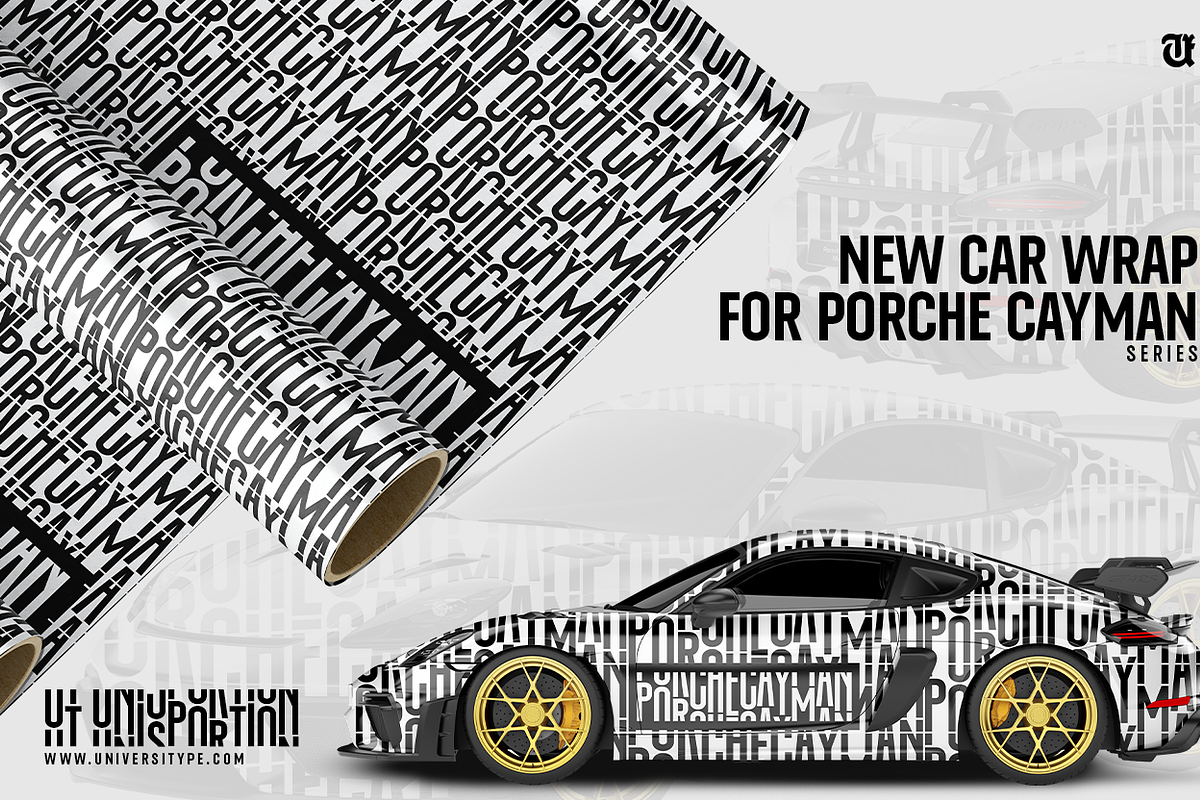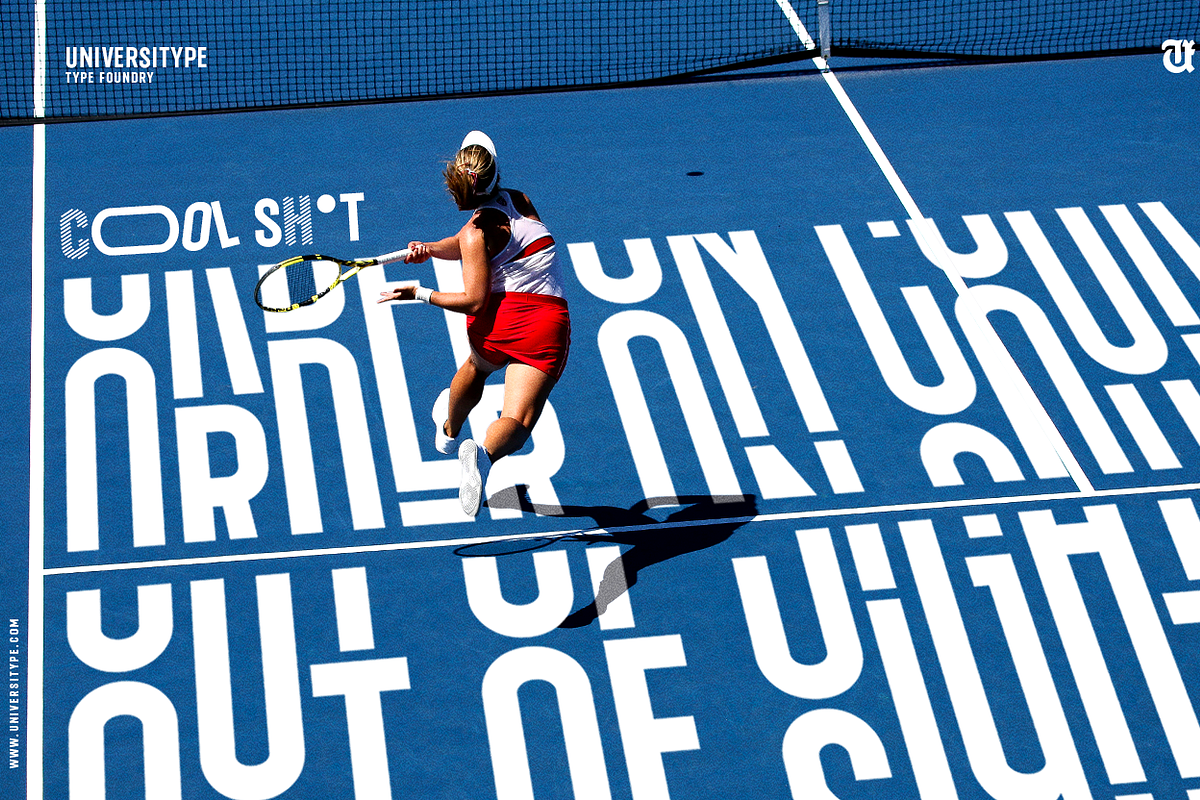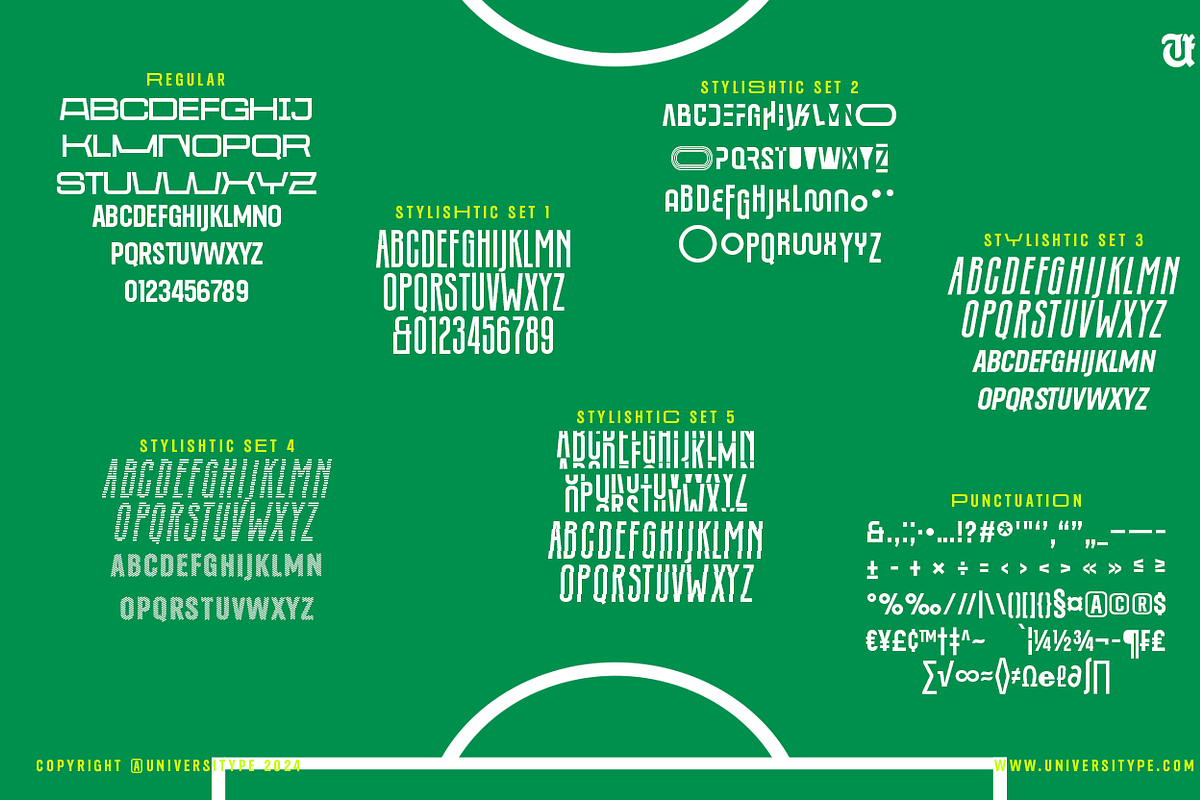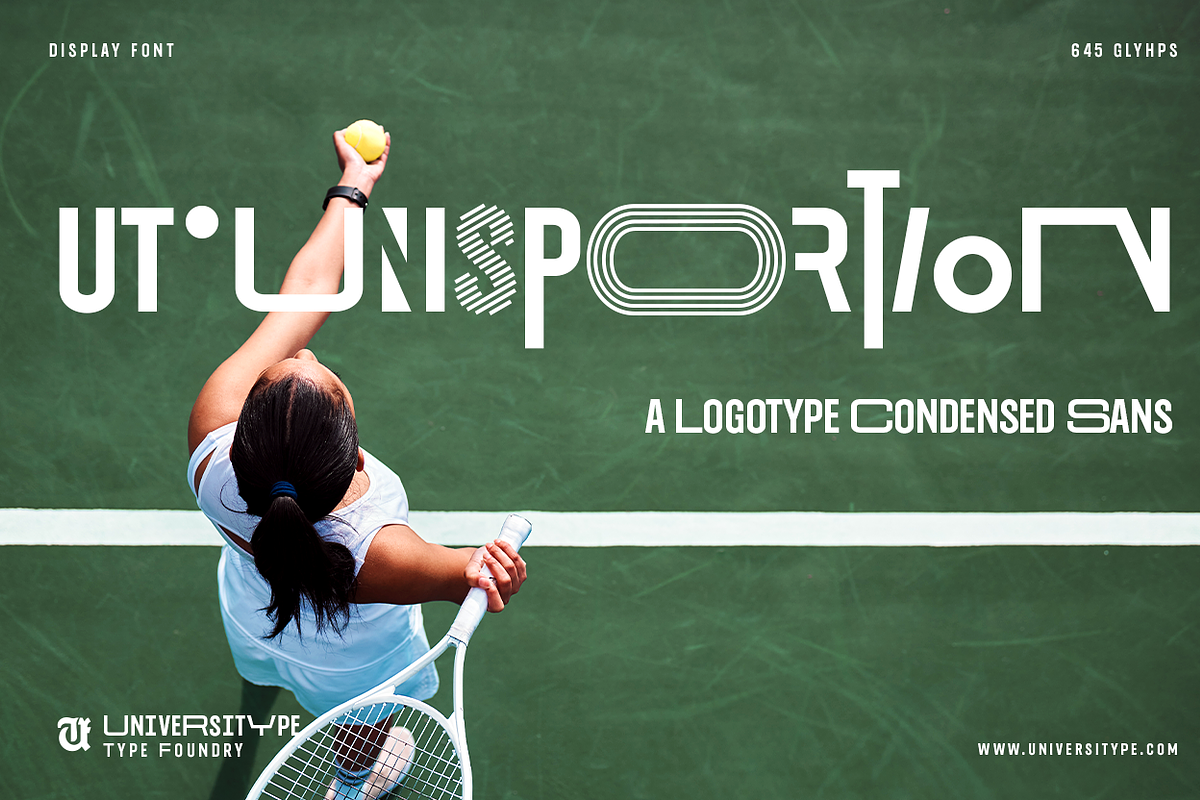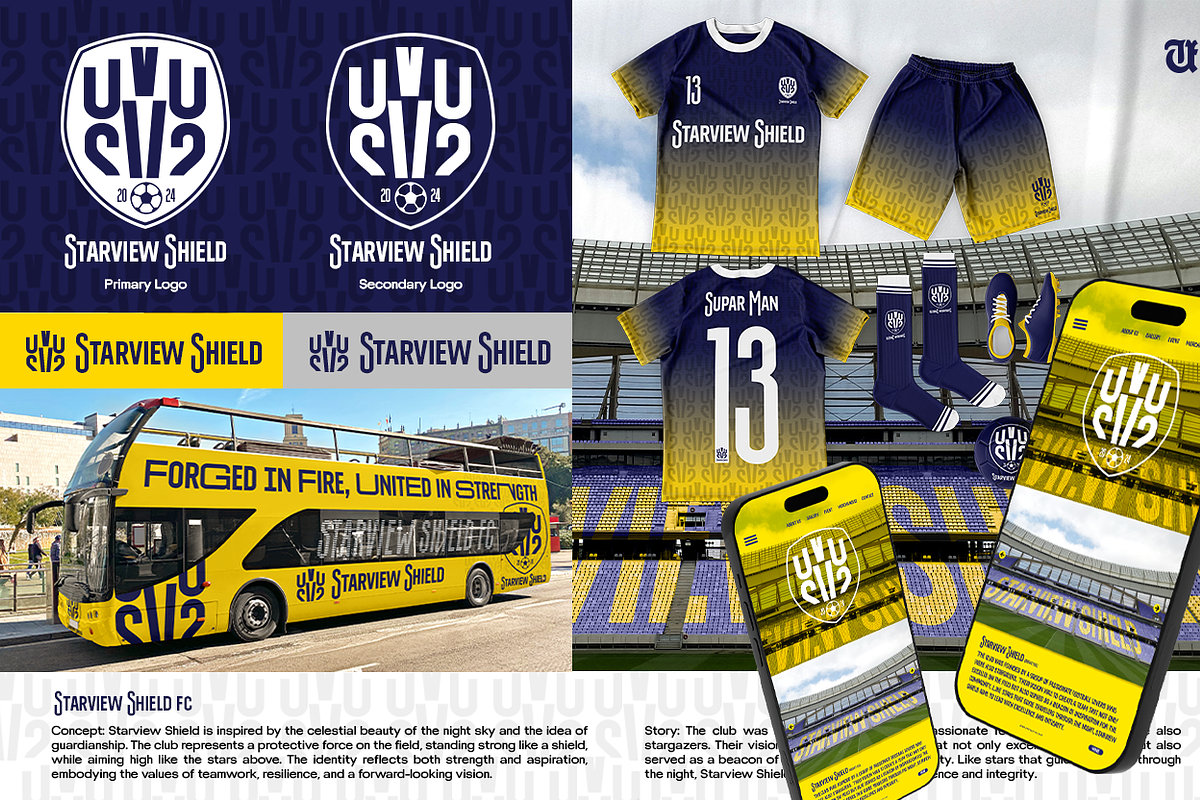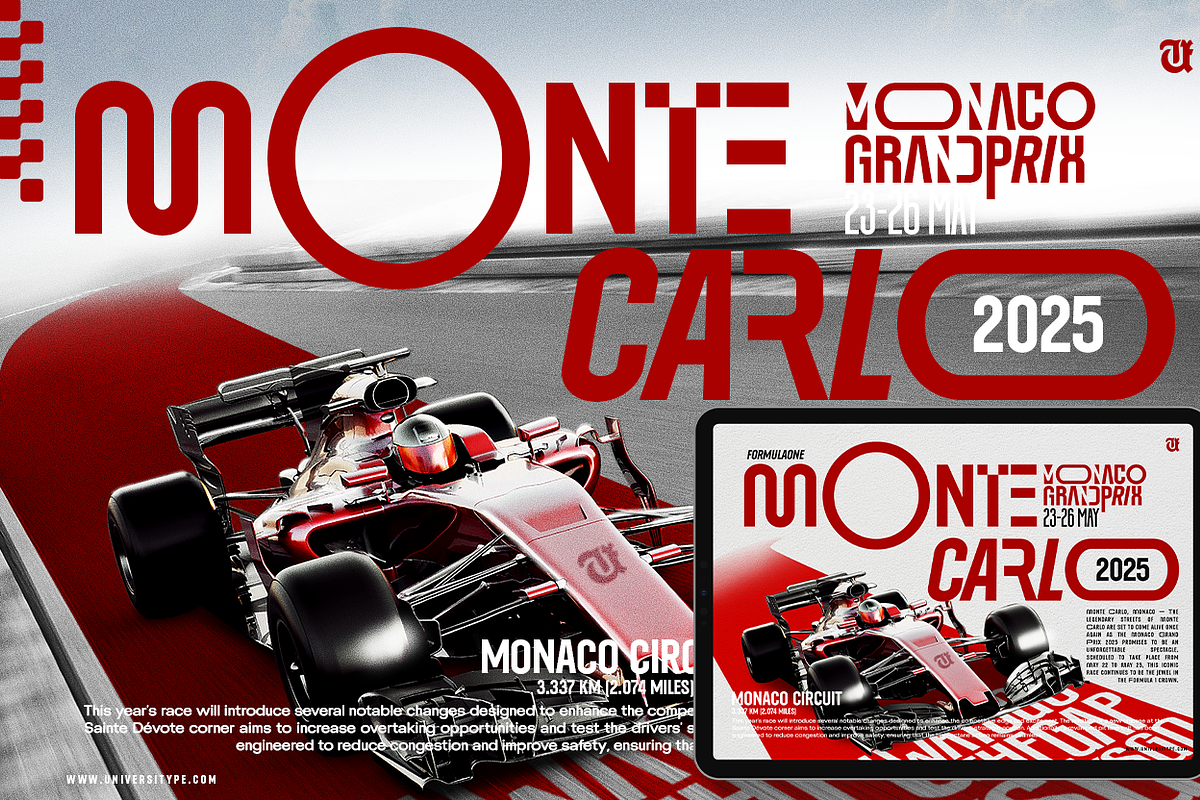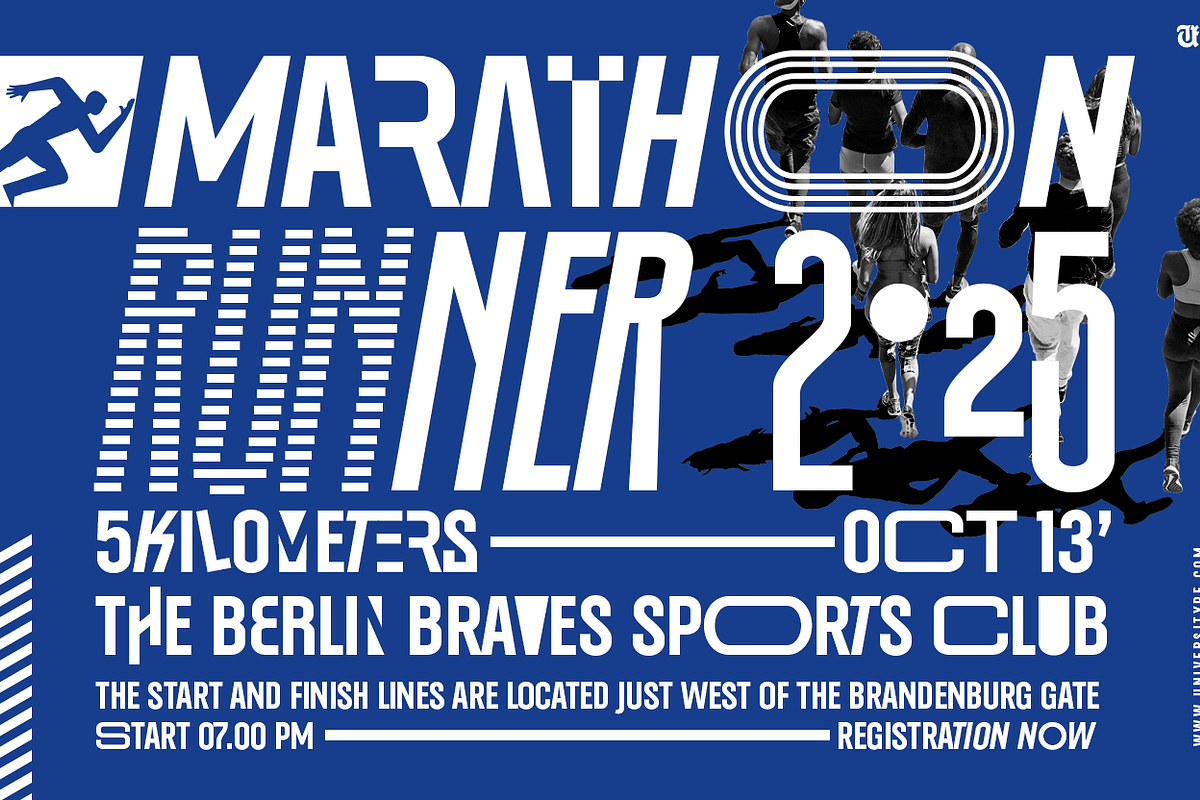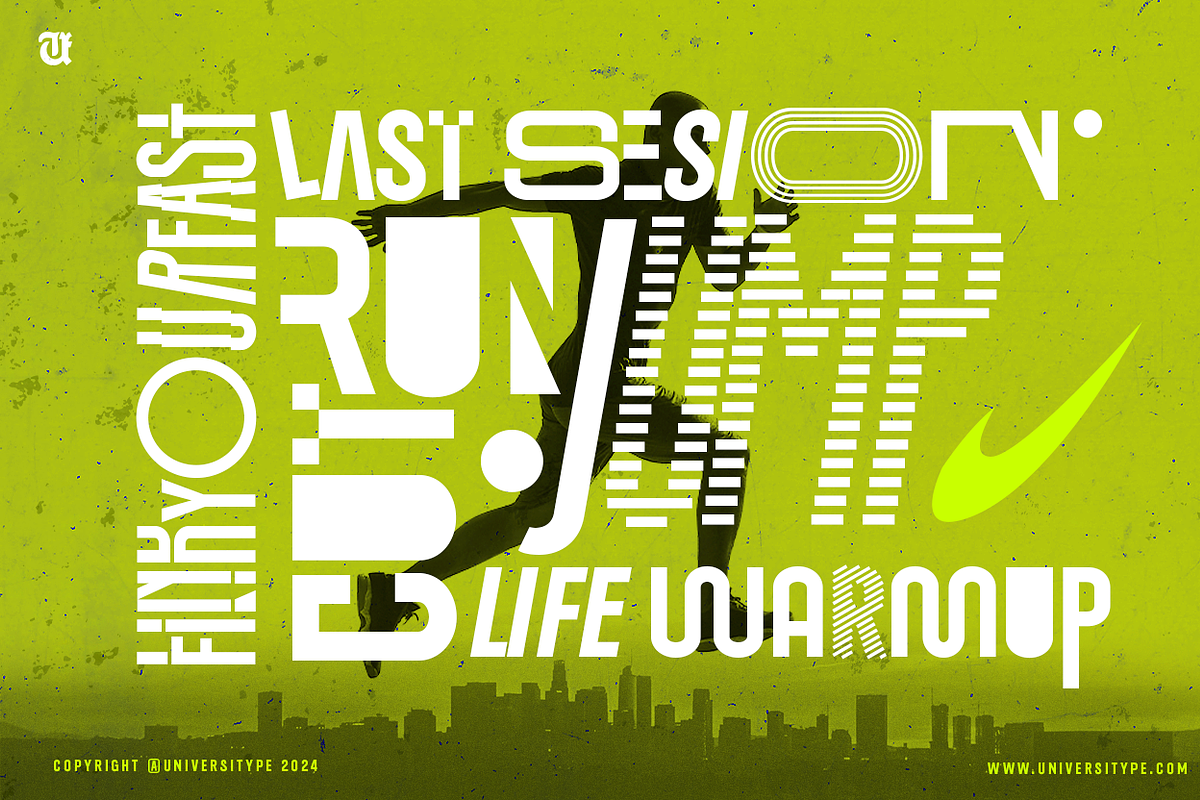
UT Unisportion - A Logotype Font
UT Unisportion, a typeface that’s all about victory! This font isn’t just another tool—it’s your teammate in creating dynamic and compelling sports communications. Inspired by the Olympic Games spirit, it embodies resilience, strength, and the unyielding determination of athletes. Perfect for any athletic brand eager to make its mark, UT Unisportion brings a bold, dynamic style that emphasizes action and strength, ideal for everything from digital displays to team jerseys.
Boost your brand’s presence with UT Unisportion’s striking design. It ensures your brand isn’t just seen—it’s remembered. Its superb readability means your message stays clear and accessible, whether it’s on a billboard or the back of a jersey, connecting with fans and players alike. Plus, its versatility makes it a perfect fit across all your branding platforms, giving everything you do a look of professionalism. Designed specifically with the essence of sports—including Paralympic competitions—in mind, UT Unisportion supports multiple languages and special characters, making it a great pick for international teams and global events.
UT Unisportion is ready for everyone, from up-and-coming sports clubs to major athletic apparel lines, and even marketers looking to score big with sports fans. It performs brilliantly across both digital and print, ensuring your message not only lands but sticks.
Story Behind it UT Unisportion font inspired by running circuits and basketball courts, provides a vivid illustration of how sports infrastructure can influence typeface design. This adds another layer of context to the UT Unisportion font, linking its physical form to the geometric precision and strategic planning inherent in sports arenas. This inspiration from athletic tracks and courts not only makes the font visually intriguing but also imbues it with the dynamism and competitive spirit of sports. It’s a clever fusion of form and function, reflecting both the physicality of sports and the clarity needed in effective communication.
Key Features: Bold, Dynamic Design: Emphasizes action and strength, perfect for high-impact sports branding. Highly Readable: Even at fast speeds or from a distance, ensuring your message is always clear. Versatile Application: Ideal for digital displays, print media, and team apparel.
Benefits : Amplify Your Brand’s Presence: The bold design ensures your brand remains unforgettable, enhancing recognition across various media. Engage Your Audience Effectively: High readability keeps your message accessible to fans in the stands and viewers at home, fostering a stronger connection. Uniform Branding Across Platforms: Consistency in style from digital to physical applications solidifies your professional image.